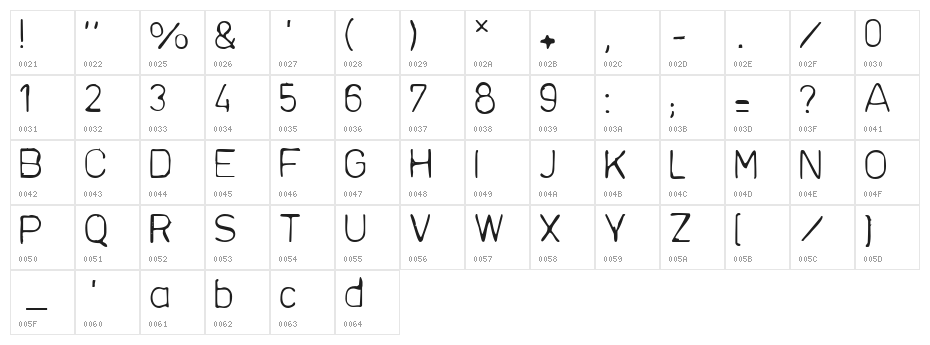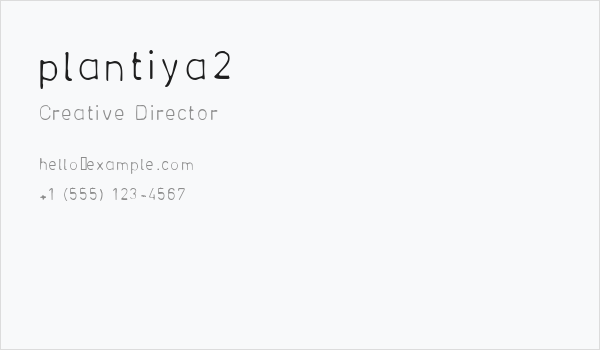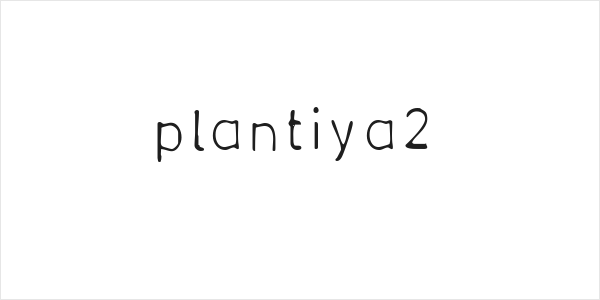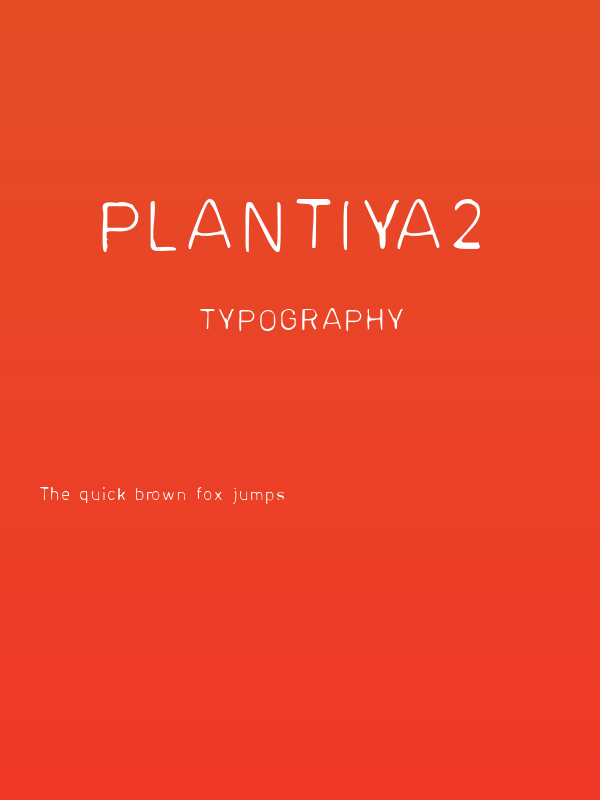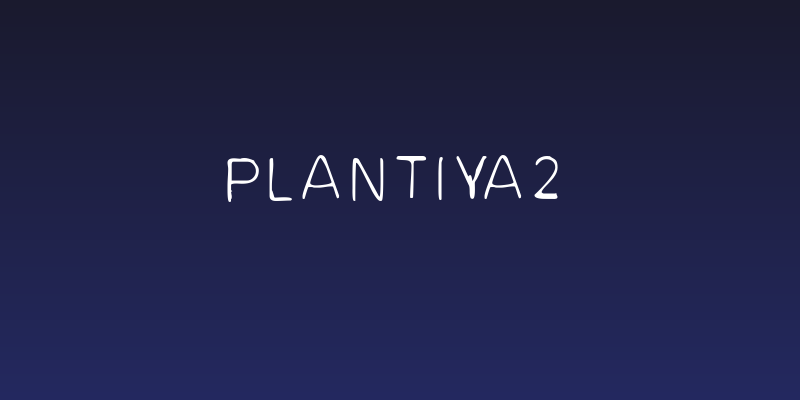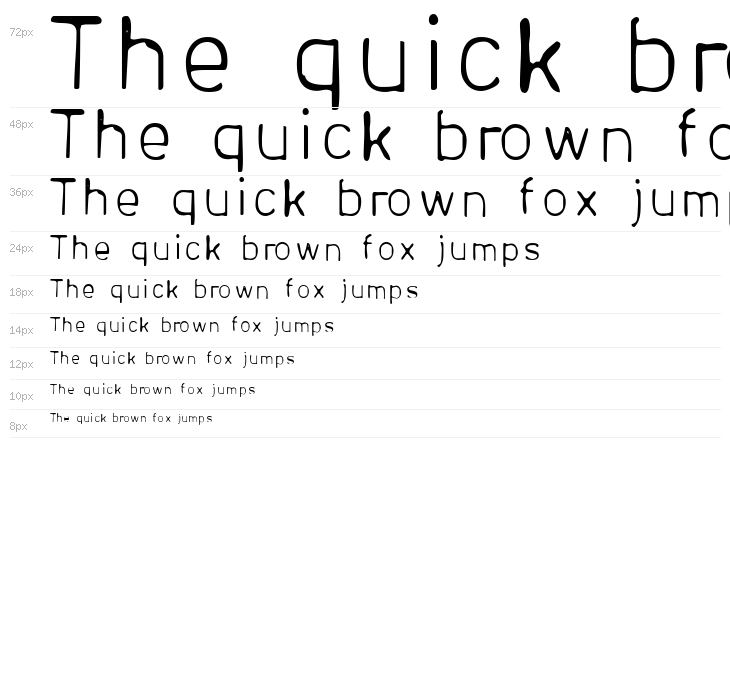
plantiya2 Font
plantiya2 Description
This font features a unique, hand-drawn aesthetic with irregular strokes and a slightly uneven baseline, giving it a casual and organic feel. The characters are distinct and quirky, with a playful touch that adds personality to the text. The uppercase letters maintain a consistent height, while the lowercase letters exhibit a charming irregularity. Numbers and special characters follow the same informal style, making the font versatile for creative projects. The overall appearance is approachable and friendly, suitable for designs that aim to convey warmth and individuality.
| Proposed Projects | Ideal for greeting cards, children's books, casual branding, and creative posters. |